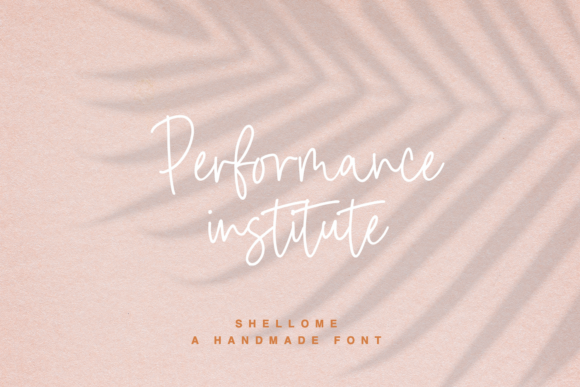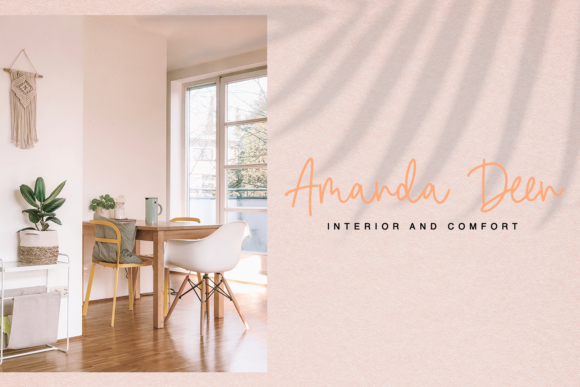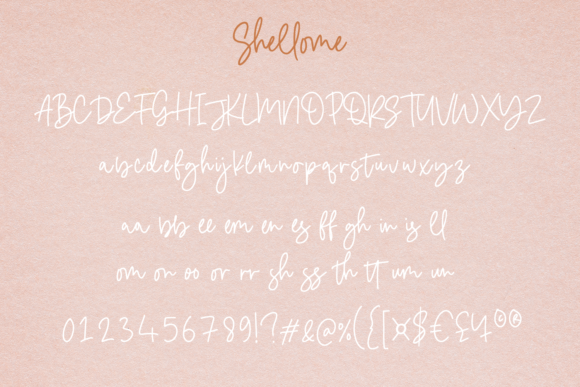
Introduction to Shellome Font
Shellome is a fresh, handmade handwritten font that embodies elegance and authenticity in every letter.
It’s perfect for wedding designs, invitations, personal projects, business cards, marketing materials, and many other crafty ideas .
Why Choose Shellome Font?
Shellome Font offers exceptional quality and versatility, making it a valuable addition to your design toolkit. Whether you’re creating for personal projects or commercial use, Shellome Font delivers professional results.